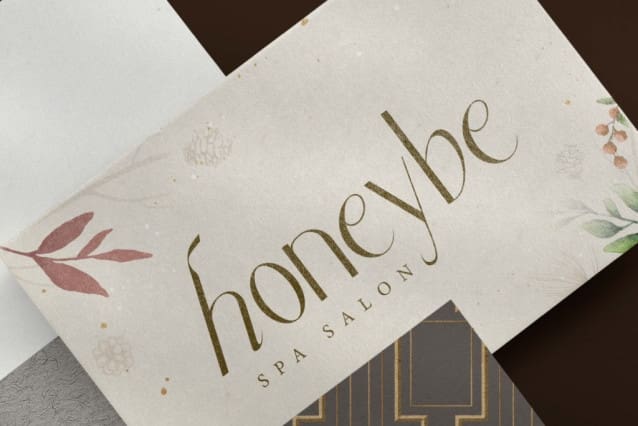
Good Honey Font
Good Honey Font is an elegant sophisticated stylish display font with italic uppercase letters and minimalist lowercase letters. This font has two different lowercase types. Apart from being slanted, one of them also has a different appearance with the addition of a small line at the end of the letters. It can be used in a variety designs, such as brochure, business card, custom design, gift box, invitation, label, product packaging, quote, screen printing, website, and more!
Good Honey Font includes a full set of all lowercase letters for Uppercase and Lowercase characters with a different twist, Numerals, Punctuation, and Symbol. This font that exudes elegance will be suitable for many industries, such as advertisement, beauty product, event or wedding organizer, fashion, furniture, handicraft, resort, restaurant, spa and salon, etc.